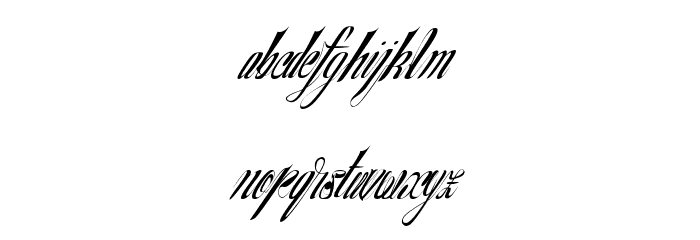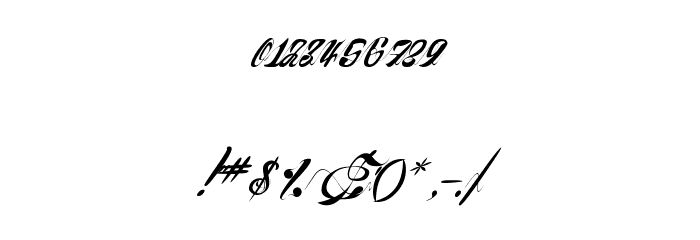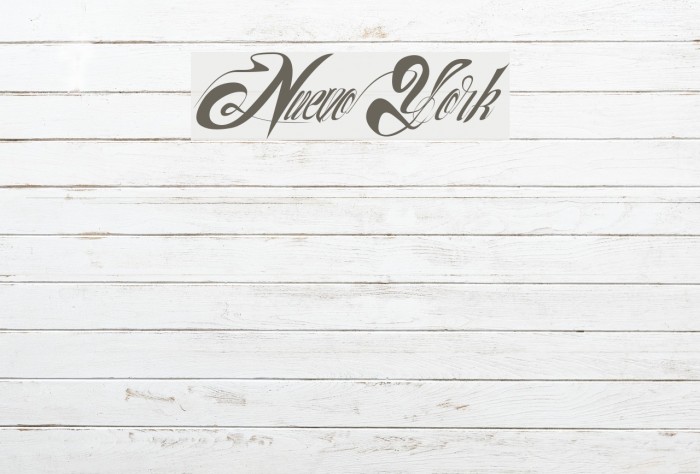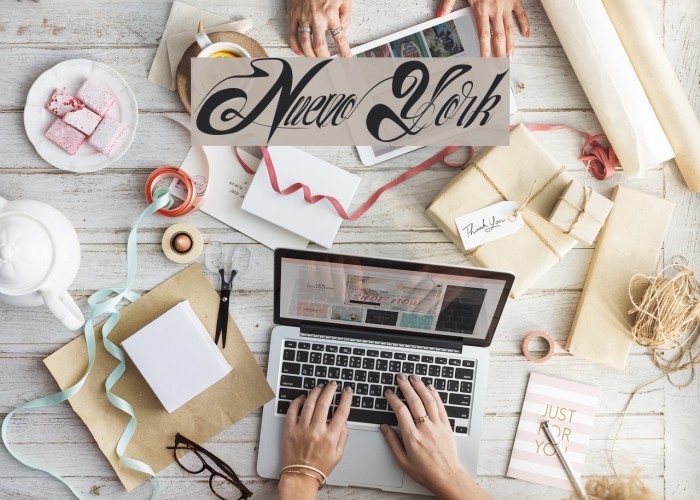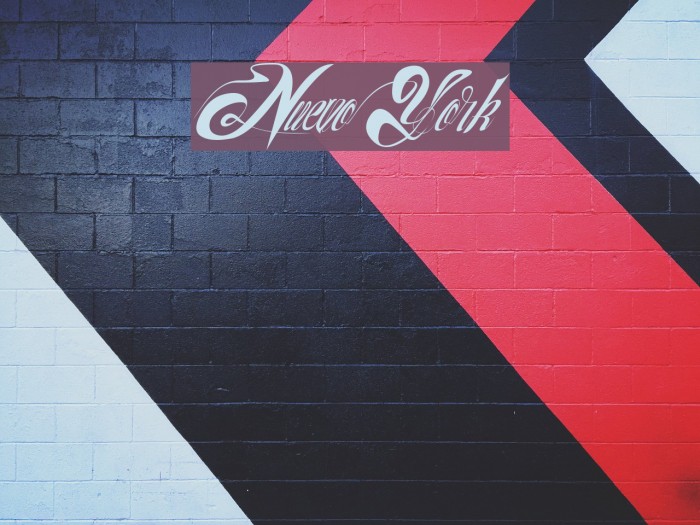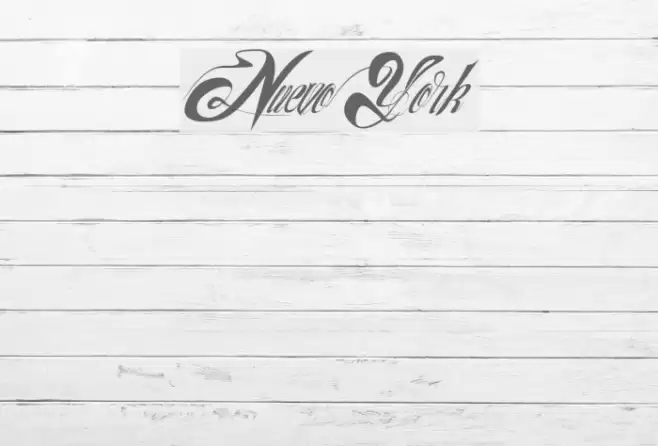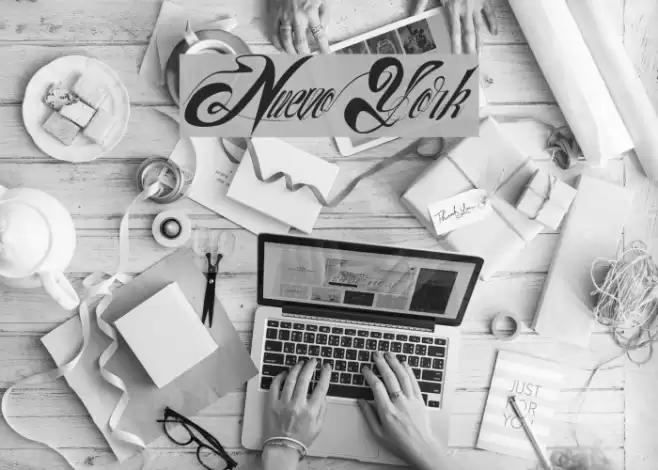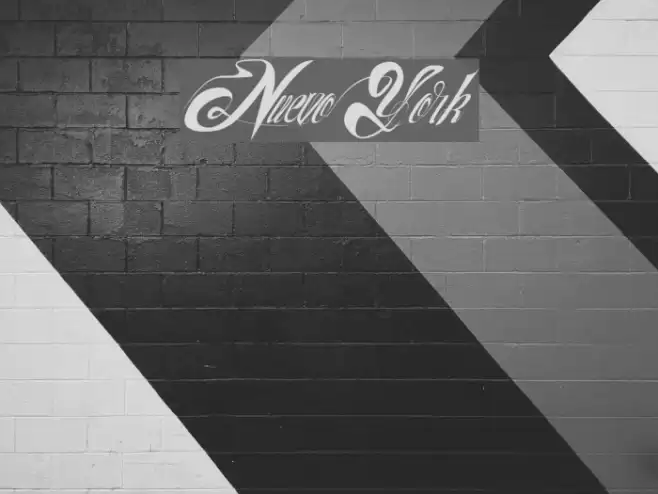
NuevoYork Font
This font exudes elegance and sophistication with its intricate script style. The characters are designed with flowing, interconnected strokes that give a sense of movement and fluidity. The uppercase letters are particularly ornate, featuring elaborate swirls and loops that add a decorative flair. The lowercase letters maintain a consistent style, with elongated ascenders and descenders that enhance the font's graceful appearance. The numerals and special characters are equally stylized, ensuring a cohesive look across all text elements. This font is ideal for projects that require a touch of class and refinement.
An elegant and sophisticated script font with intricate, flowing strokes.
- Proposed Projects: Ideal for wedding invitations, luxury branding, elegant stationery, and high-end product packaging.
- Character Spacing: Tight
- Use Case: Logos, Invitations, Branding